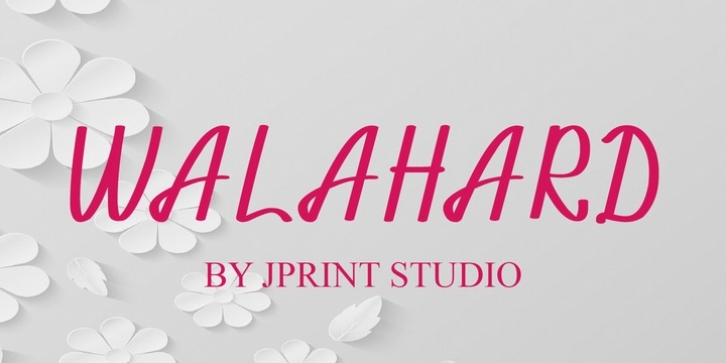
Walahard was designed by Gais Zaelani and published by JprintStudio. Walahard contains 4 styles and family package options.
Introducing Walahard, stylish handwriting with a modern style. This beautiful font offers your personal touch to your latest art project with an elegant, classy and modern look.